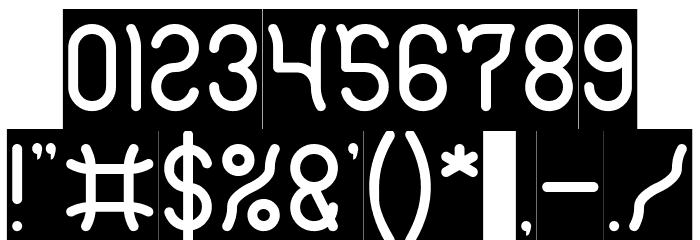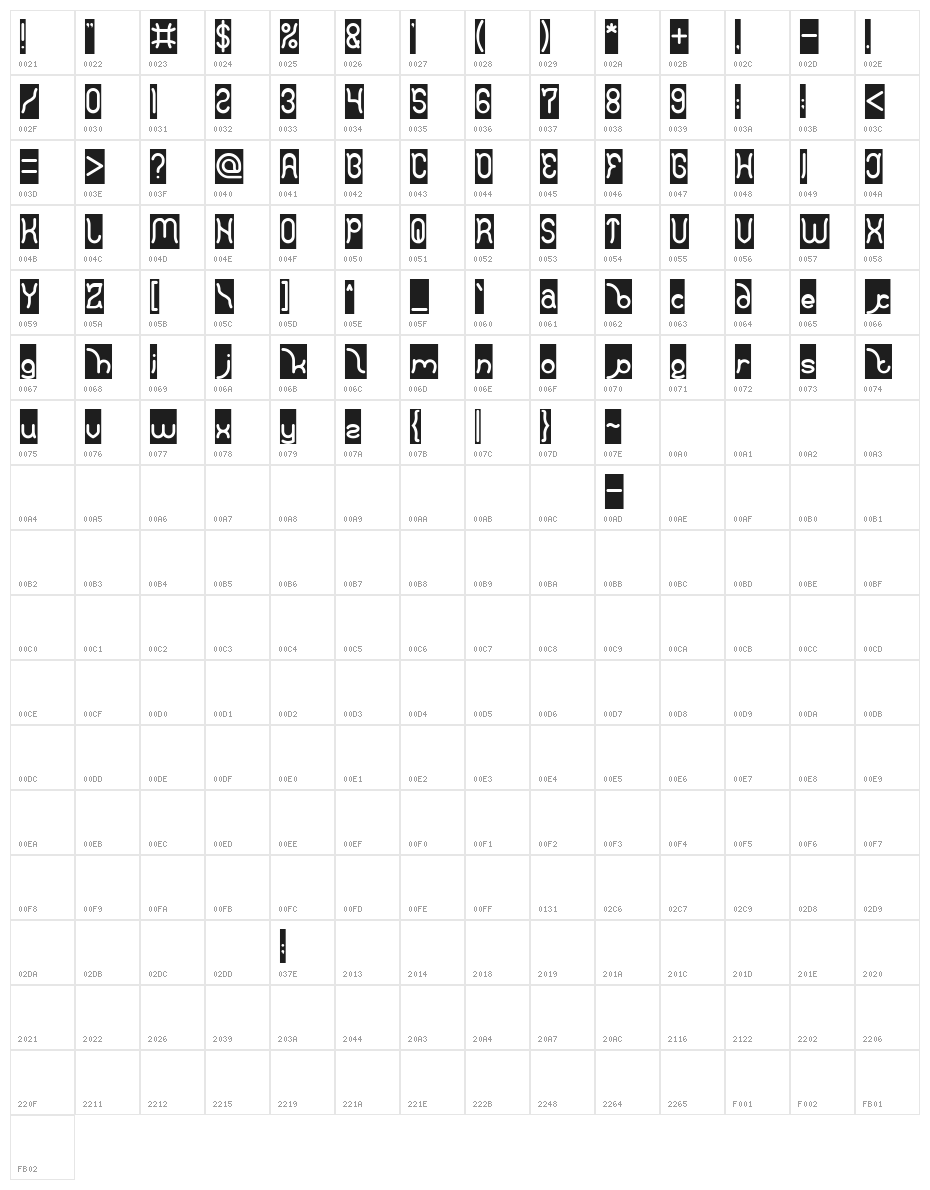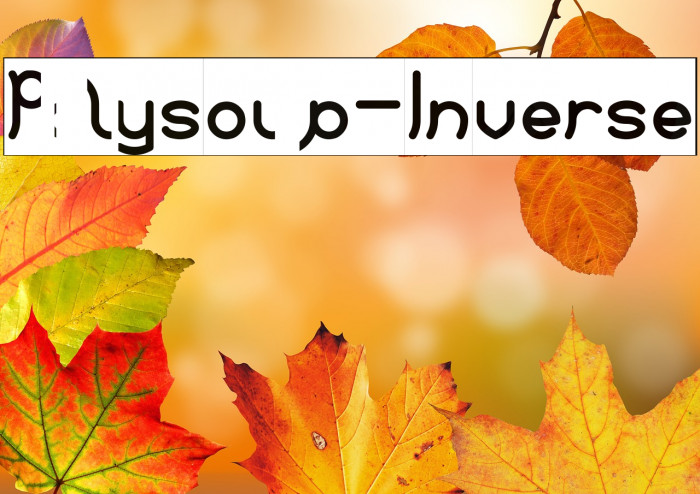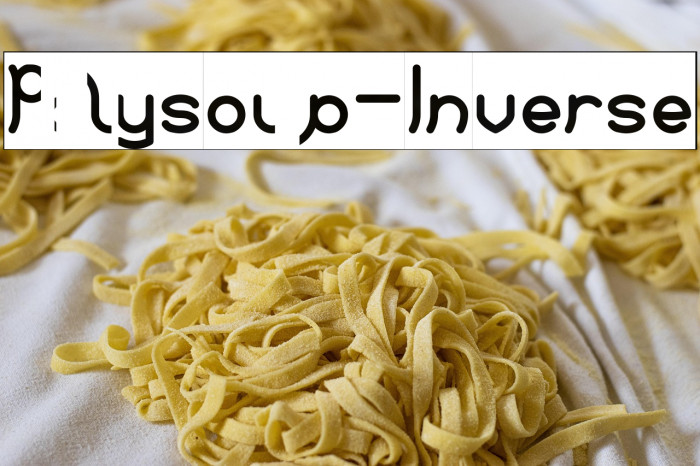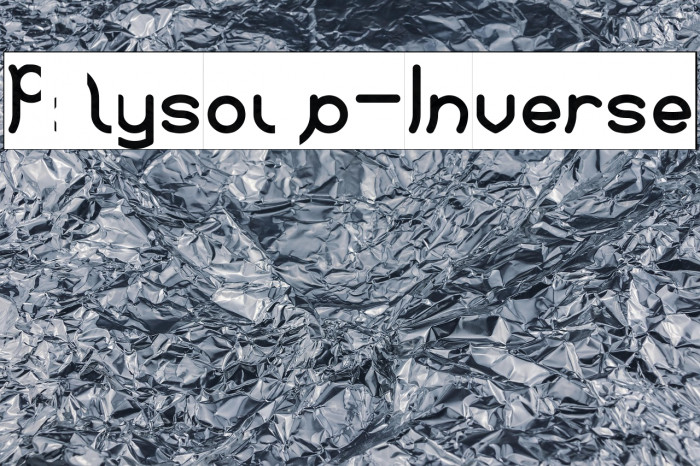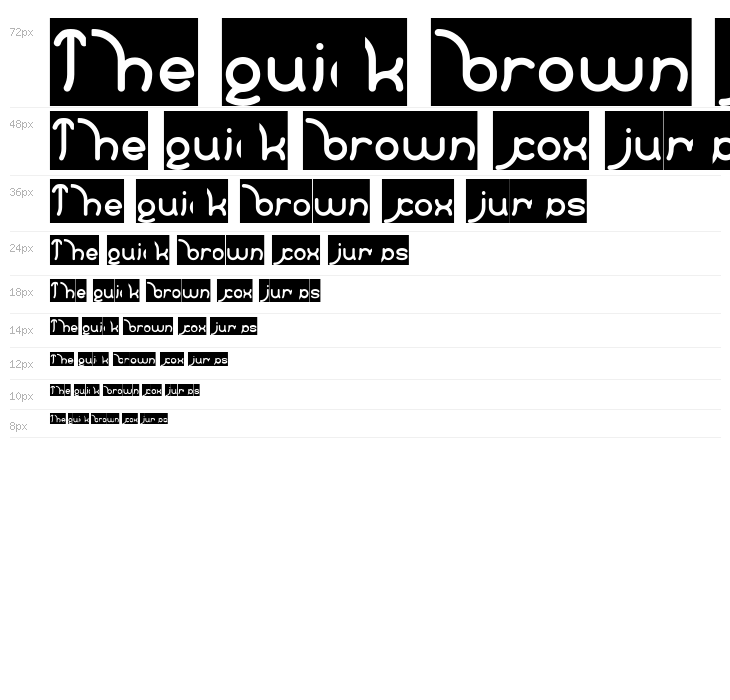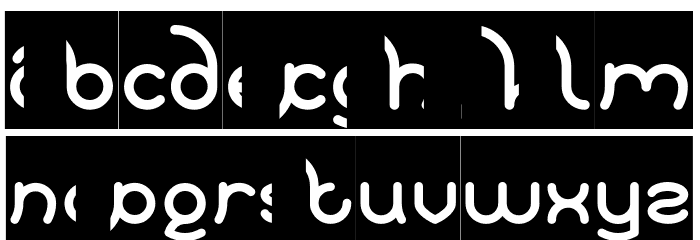
Polysoup-Inverse Font
Polysoup-Inverse Description
This font features a unique and playful design with a distinctively rounded and flowing style. The characters are bold and have a whimsical, almost cartoon-like appearance, making them stand out with their thick strokes and smooth curves. The uppercase letters maintain a consistent height, while the lowercase letters exhibit a more varied structure, adding to the font's dynamic feel. Numbers and special characters follow the same playful aesthetic, ensuring a cohesive look across all elements. The font's style is both modern and decorative, suitable for creative projects that require a touch of fun and originality.
Overall StyleModern, Decorative
Proposed ProjectsIdeal for children's books, playful branding, creative posters, and eye-catching headlines.